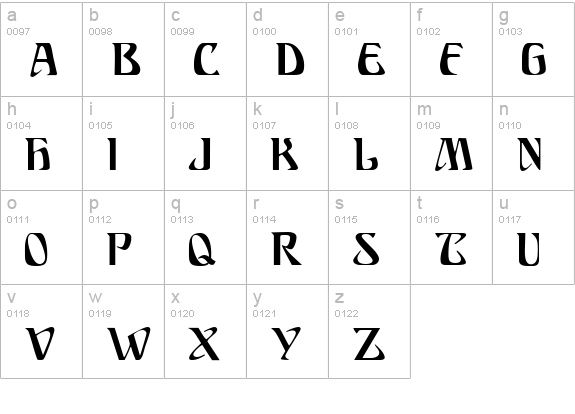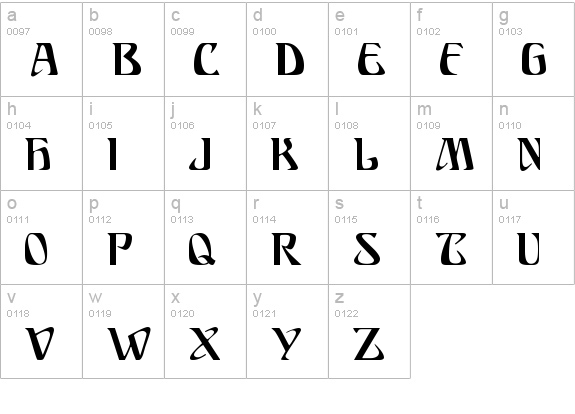
SundraDisplayCaps Font Details
SundraDisplayCaps font is a stunning display typeface that exudes elegance and sophistication. With its bold, uppercase letters and intricate details, this font is perfect for making a statement in your designs. The sharp lines and unique characteristics of SundraDisplayCaps will add a touch of modern flair to any project. The best part about SundraDisplayCaps font is that it is completely free to download at FontsMarket.com. Whether you're designing a logo, creating invitations, or working on a branding project, this font will help your work stand out. Don't miss out on the opportunity to enhance your designs with the beauty and versatility of SundraDisplayCaps font. Download it now and elevate your creative projects to new heights.